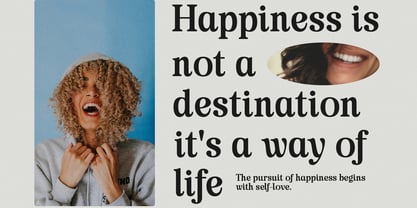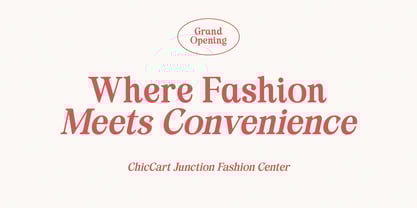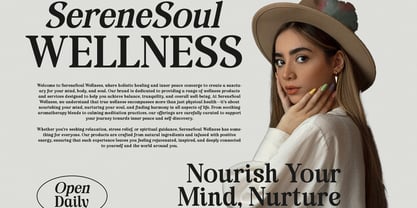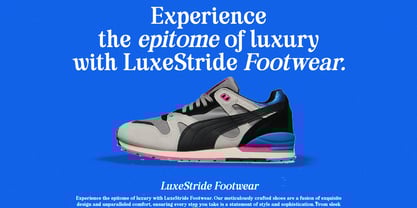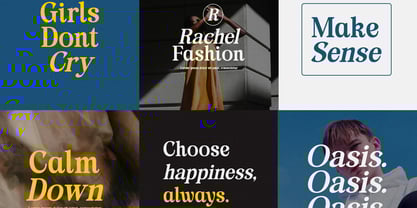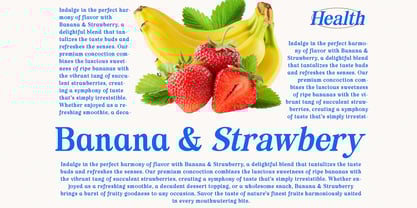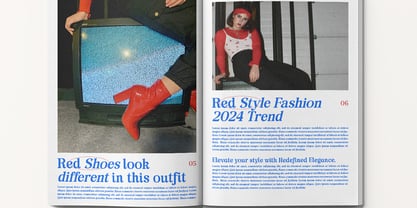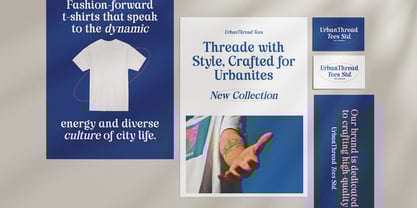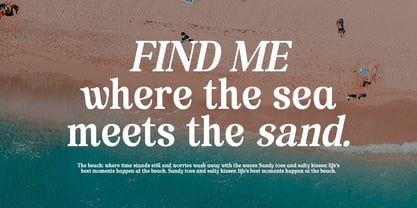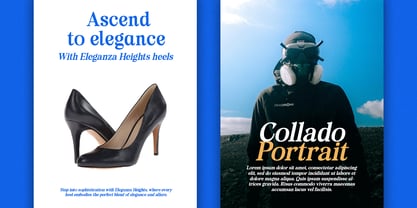
Rumelaz Gekinsa
by Graphicxell
The Rumelaz Gekinsa Font Family was designed by Graphicxell and published by Graphicxell. Rumelaz Gekinsa contains 2 styles and family package options. More about this family
Rumelaz Gekinsa Combination Serif Font is a sophisticated and stylish typeface that blends modern elegance with timeless serif charm. Designed with a keen eye for detail, this font features a dynamic interplay between classic regular strokes and graceful italic curves—making it a standout choice for projects that demand both personality and precision.
Crafted to offer exceptional readability across both print and digital platforms, Rumelaz Gekinsa is perfect for brands and creatives looking to make a lasting impression. Its high-contrast letterforms and well-balanced spacing ensure clarity at all sizes, while the subtle flair of its italic elements adds a refined and artistic touch.
Whether you're designing a high-end logo, developing a website interface, or laying out editorial content for magazines, articles, or brand books, Rumelaz Gekinsa adapts effortlessly to your needs. It’s equally at home in corporate branding, creative agencies, and luxury packaging, offering a visual language that is both distinctive and versatile.
This font brings a unique blend of modern serif tradition with a contemporary twist, making it a compelling choice for designers seeking a professional yet expressive typeface. From advertisements and product labels to posters, fashion editorials, and food branding, Rumelaz Gekinsa delivers a tone of elegance, credibility, and creative flair.
With its refined aesthetics and multifunctional use, Rumelaz Gekinsa becomes more than just a font—it becomes a storytelling tool. Each glyph is meticulously designed to maintain visual harmony, ensuring your message is not only read but felt.